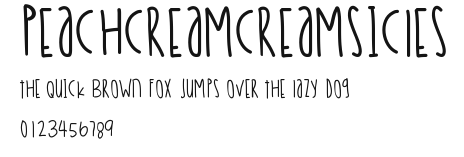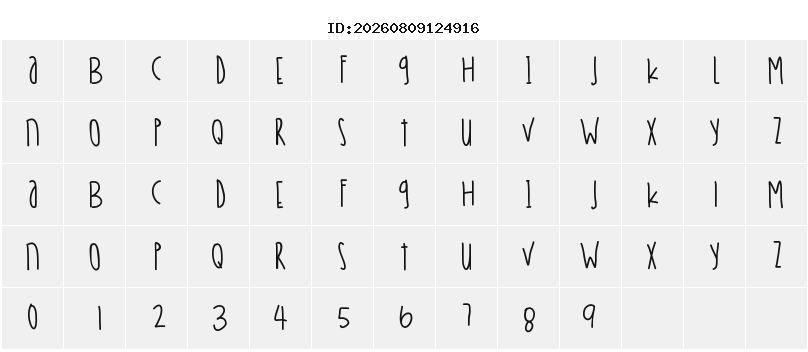
• Font Name: PeachCreamCreamsicles
About PeachCreamCreamsicles.ttf
PeachCreamCreamsicles.ttf is a modern, elegant sans-serif font designed for ultimate readability and visual harmony. Perfect for branding, headlines, web design, and print materials.